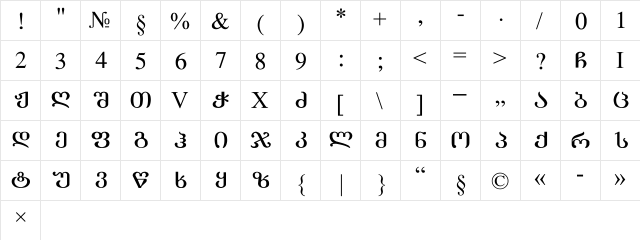
LitMtavrPS Regular
Design Context for LitMtavrPS Typeface
LitMtavrPS offers clean, dependable letterforms without strong stylistic allegiance, making it a practical choice for designers who need flexibility.